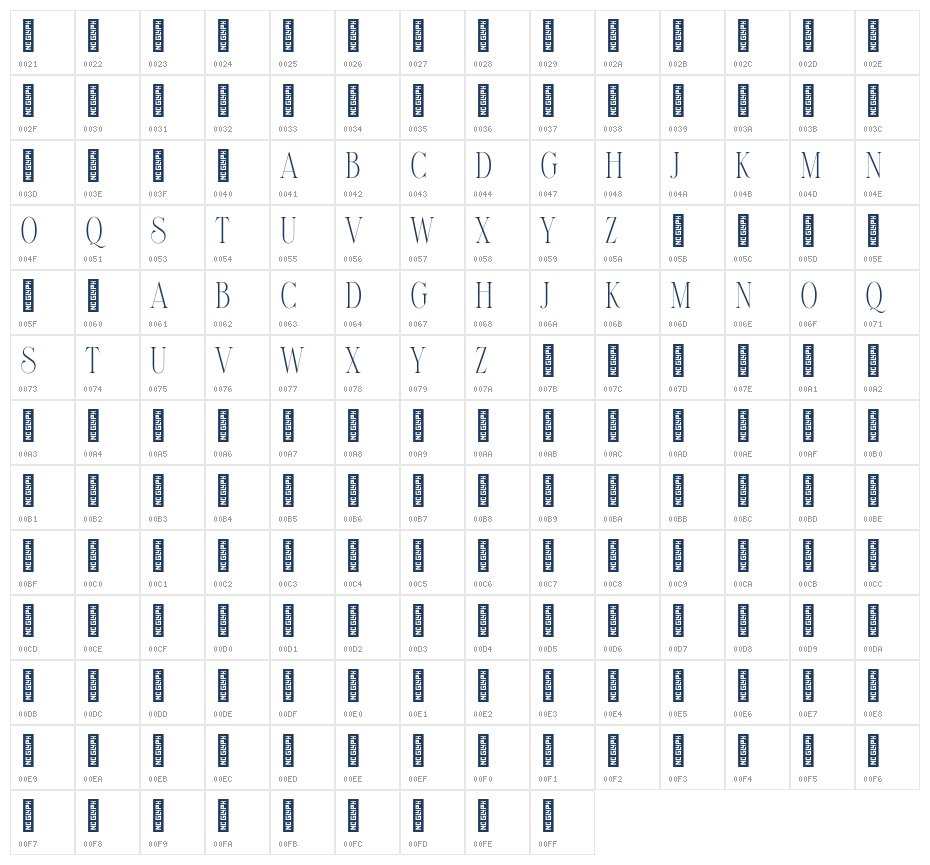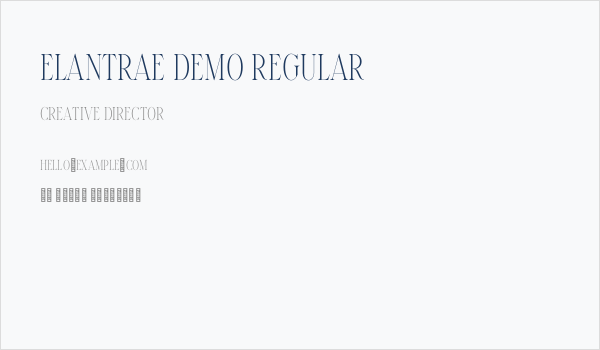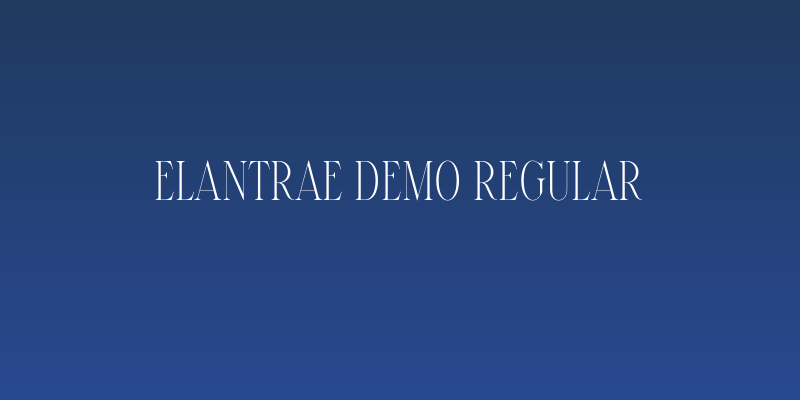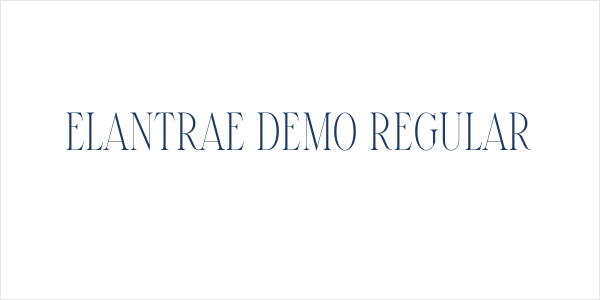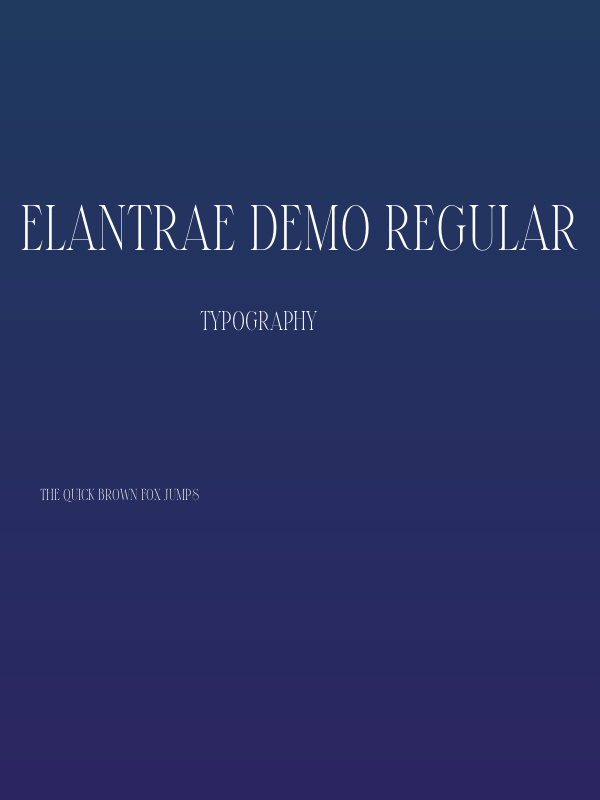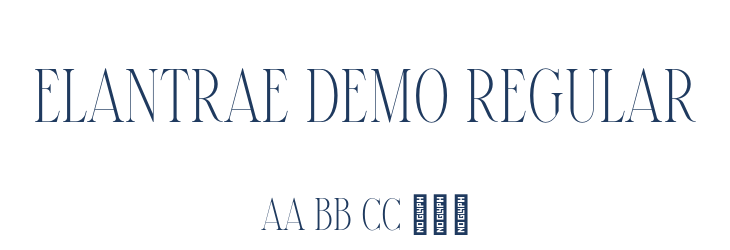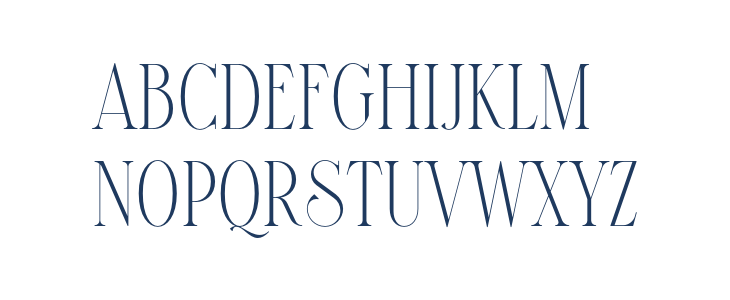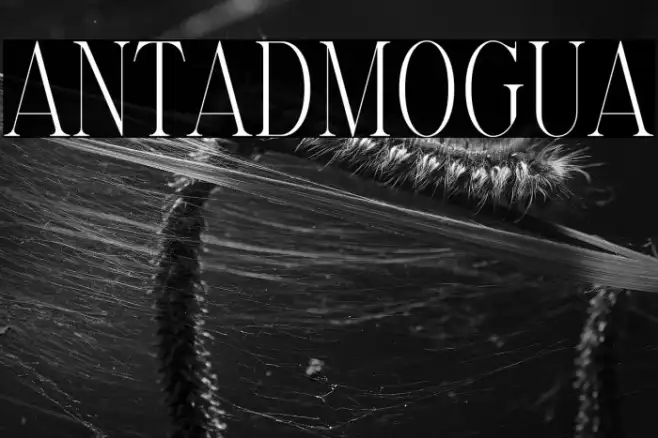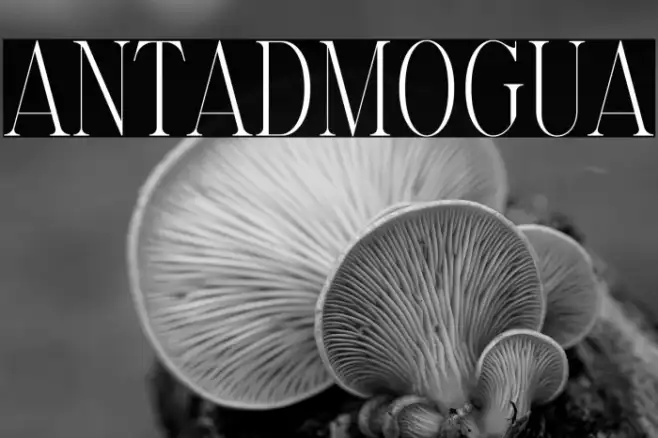
Elantrae Demo Regular Font
Elantrae Demo Regular Description
Elegant, serif font with high contrast and thin strokes, characterized by tall, narrow letterforms and sharp serifs.
| Overall Style | Elegant, Classic |